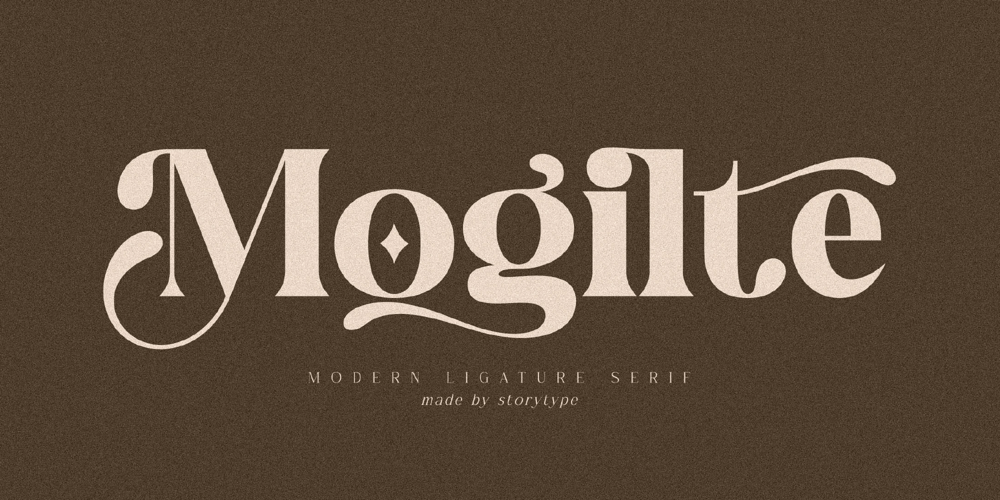
Mogilte Font Family was designed by Heru Utama Putra and published by Letterena Studios. Mogilte contains 2 styles and family package options. Mogilte is a modern and classic serif font with a unique style and fancy look. This typeface is perfect for an elegant & luxury logo, book or movie title design, fashion brand, magazine, clothes, lettering, quotes, and so much more.